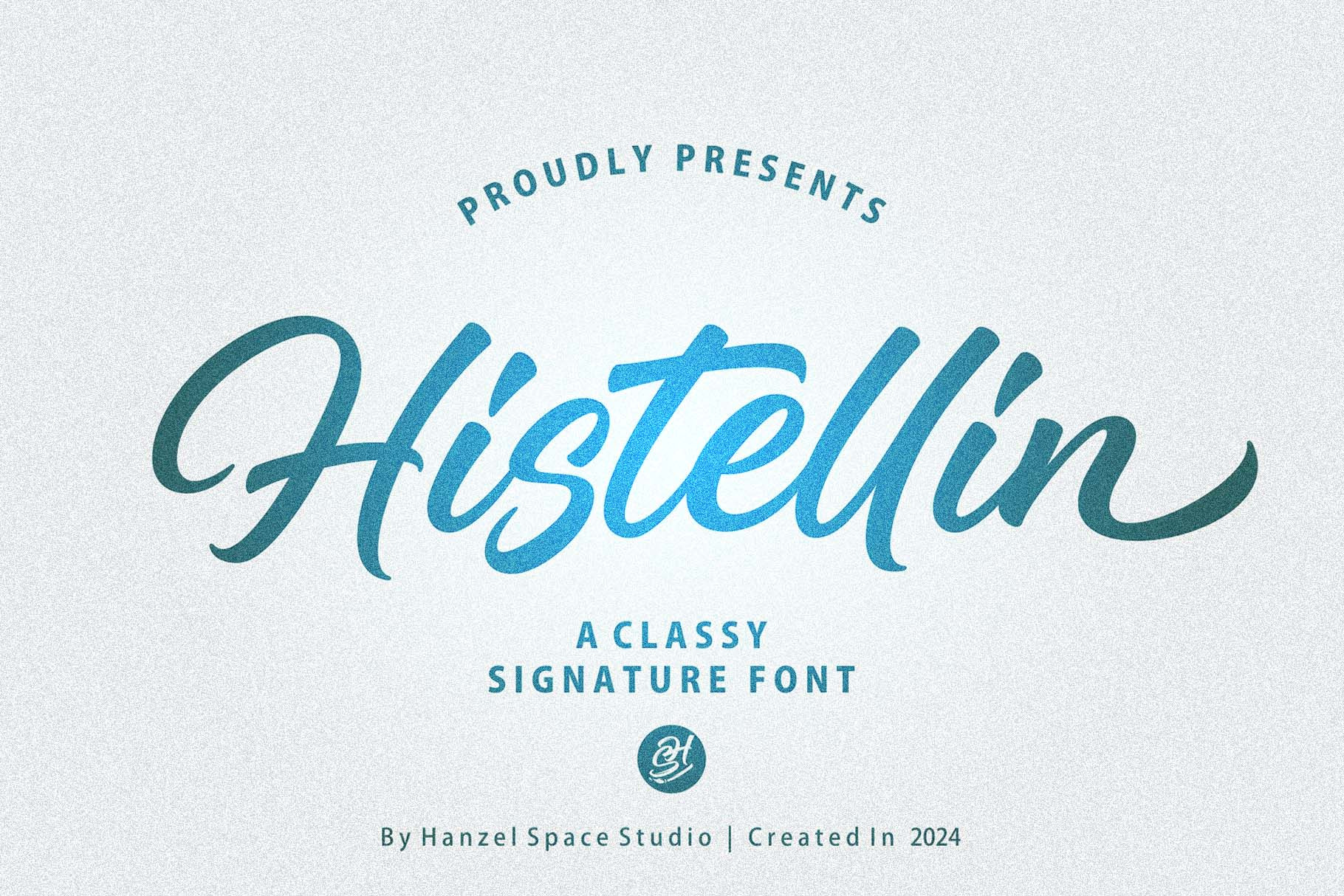
Histellin Script Font
We present the new font “Histellin” in a modern classic style, with characteristic curves so that each letter has its own character. With this font product, you can easily apply it to each of your design works.
This font was created to help you designing logotype or lettering style logo for your Brand or your clients, and you also can use it for designing all of the graphic stuff such as badge, sign, packaging, headline, title, T-shirt/apparel,bPoster, etc.
Histellin was designed for personal characters such as strong, confidence, dynamic, readable, Energic, dynamic, etc.
Multilanguage
Ending Swash